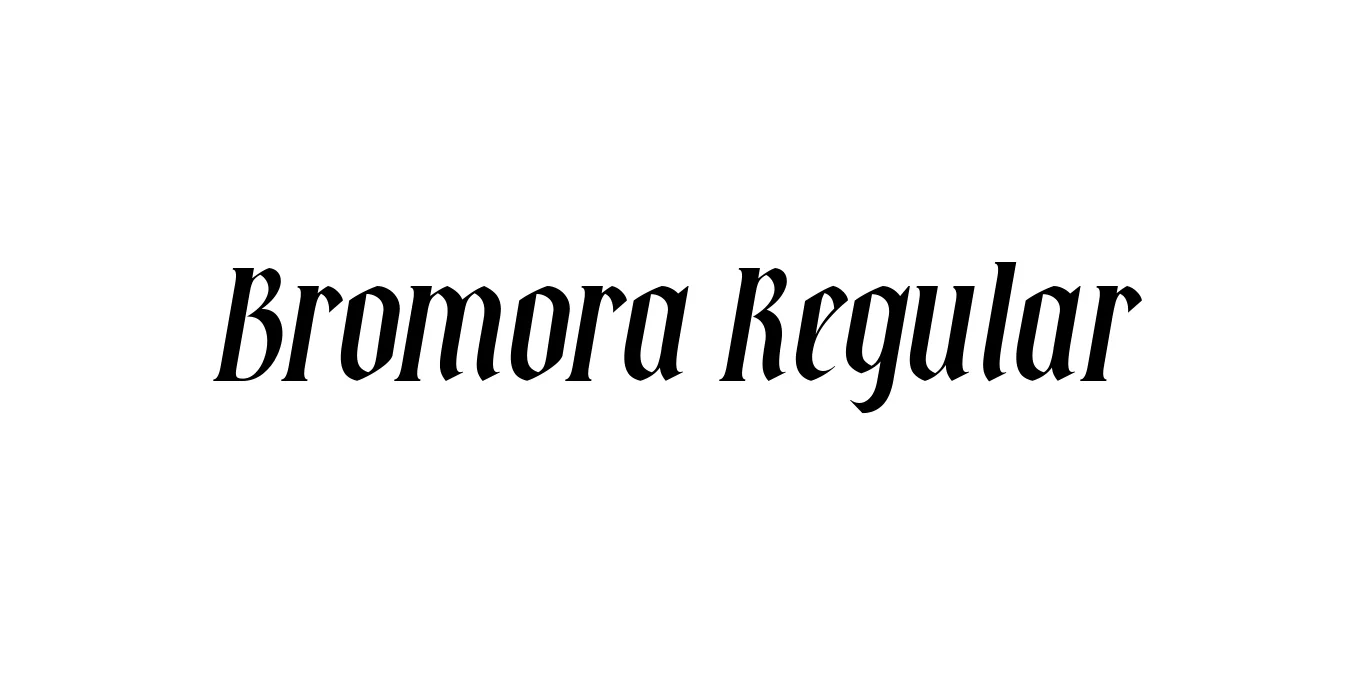
Bromora Regular
Designed by Leterick
Bromora Regular is a sophisticated display serif font that captures the essence of classic vintage aesthetics while maintaining a modern, clean execution. Designed with a focus on high contrast and elegant curves, this typeface offers a timeless appeal that bridges the gap between traditional editorial design and contemporary branding. Its balanced proportions and distinct letterforms make it a standout choice for projects requiring a touch of luxury and authority.
Developed by the studio Leterick, Bromora has gained popularity among graphic designers for its versatility in high-end applications. Whether used for mastheads, packaging, or digital interfaces, the font maintains excellent legibility and a strong visual presence. Its unique personality is defined by its sharp serifs and graceful transitions, ensuring that any text set in Bromora feels both professional and artistic.
Bromora Regular Best Uses
Ideal for luxury logos and high-end corporate identities looking for a timeless feel.
Perfect for magazine headlines, book covers, and large pull quotes.
Adds a sophisticated and premium touch to product labels and gift boxes.
Effective for hero sections and headings on lifestyle or fashion websites.